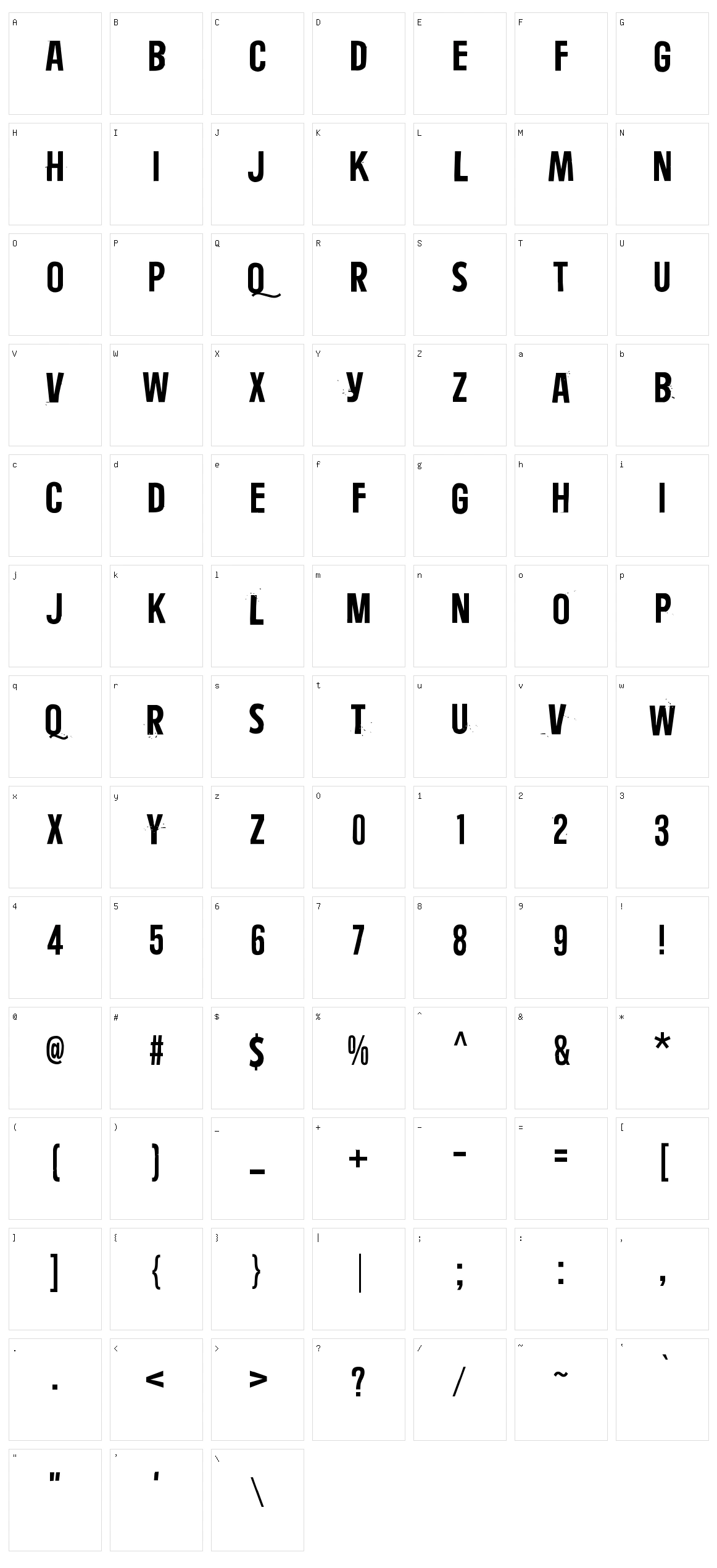
The free font Kontemporary is carefully designed by junkohanhero, showcasing a thoughtful balance of creativity and usability and falls under the Eroded font style. When you download the ZIP file, it contains only 776.94 KB of font files, making it lightweight and quick to download. Please review the license details below to understand permitted usage and distribution rights. If license information is not available, we recommend using this font for personal projects only or contacting the author directly for commercial usage permissions.